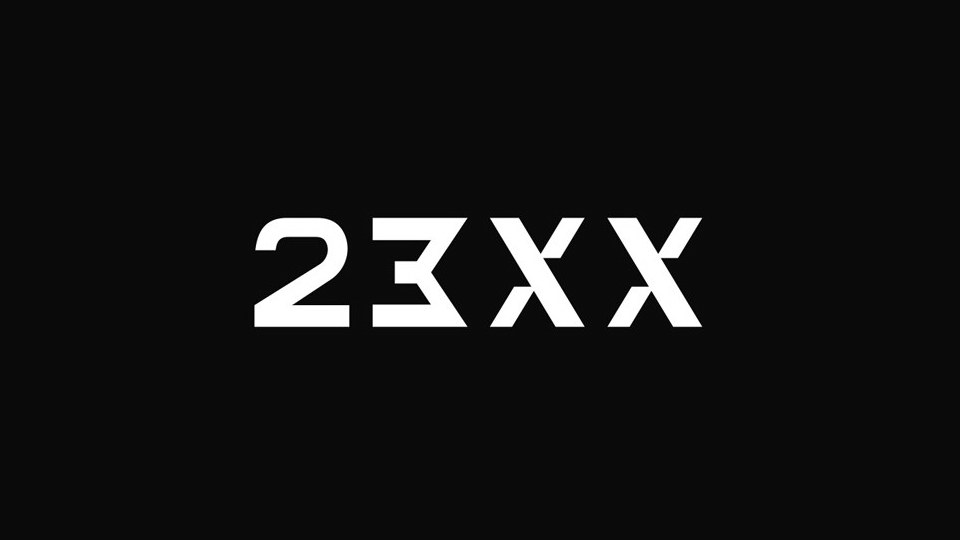
23xx Font
23XX is a big, bold, futuristic typeface, a font with a heavily mechanized, industrial feel. It contains all caps letters, numbers, symbols and accents.
23XX font can definitely be envisioned in sci-fi movies where there is an abundant amount of futuristic UI, HUD, and data designs, or adorned on some unprecedented machine prototype.